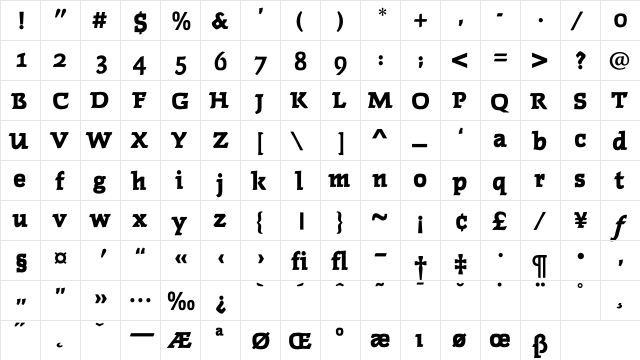
FaustExtraBoldOldStyleFigs Regular Font Preview
FaustExtraBoldOldStyleFigs Regular
FaustExtraBoldOldStyleFigs Regular Font Details
Design Context for FaustExtraBoldOldStyleFigs Typeface
FaustExtraBoldOldStyleFigs brings classic typographic sensibility to the table — its serifs and measured letterforms reflect centuries of print heritage. Its bold stroke weight gives it real presence on the page.
Pro Tip: Set FaustExtraBoldOldStyleFigs with slightly loose tracking in headlines to let each letterform's detail read clearly at display sizes.